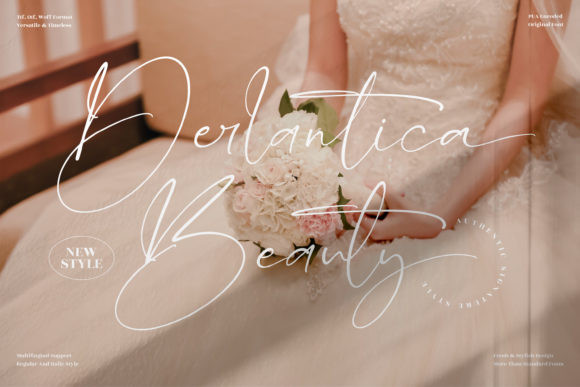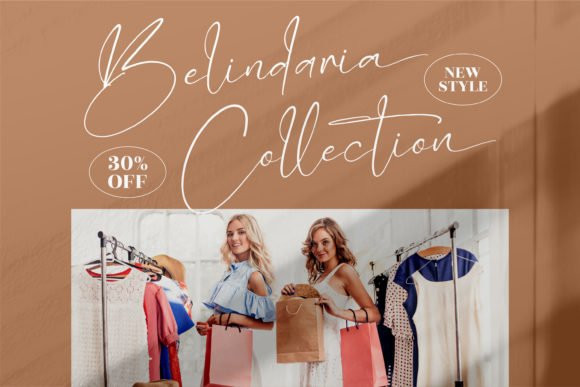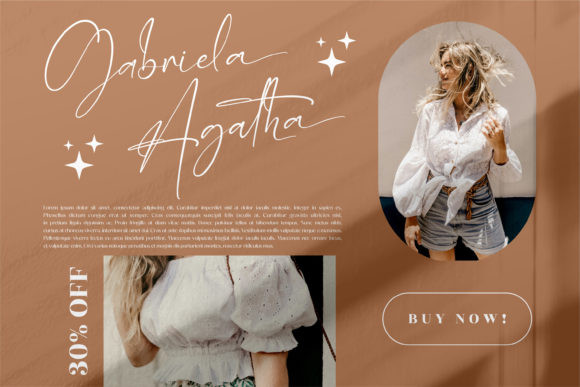
Derlantica Beauty Font
Derlantica Beauty FontDerlantica Beauty is a thin lettered and graceful script font. Fall for its ravishing style and use it to create gorgeous wedding invitations, beautiful stationary art, eye-catching social media posts, and much more!